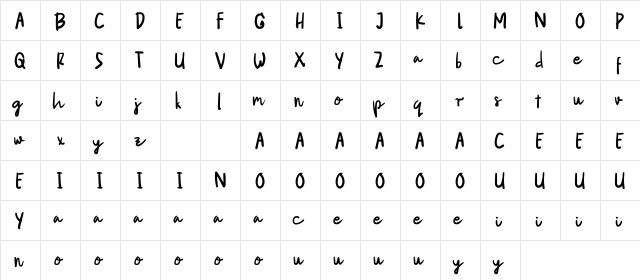
Verbally Regular
Design Context for Verbally Typeface
Verbally is a composed and adaptable typeface that performs quietly and consistently across a wide range of design contexts.